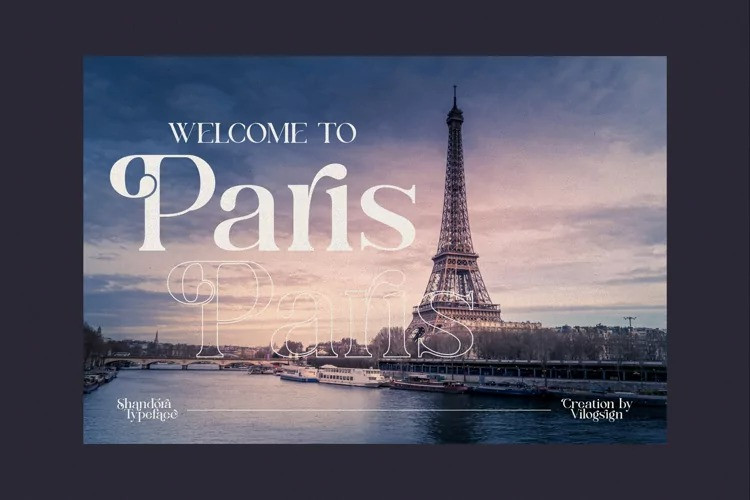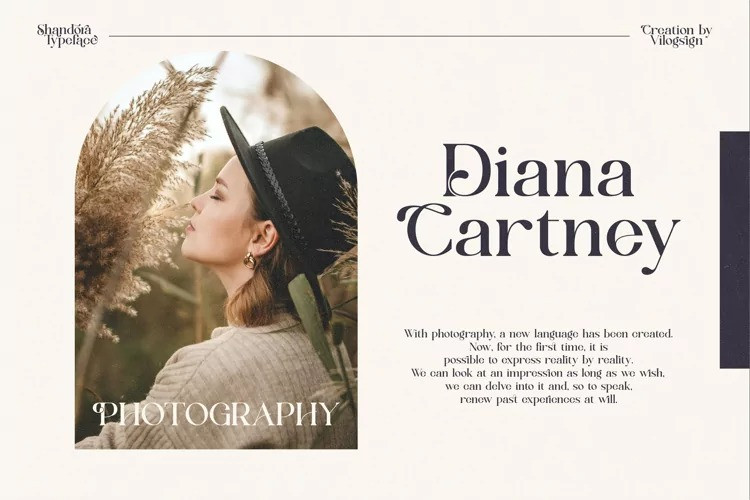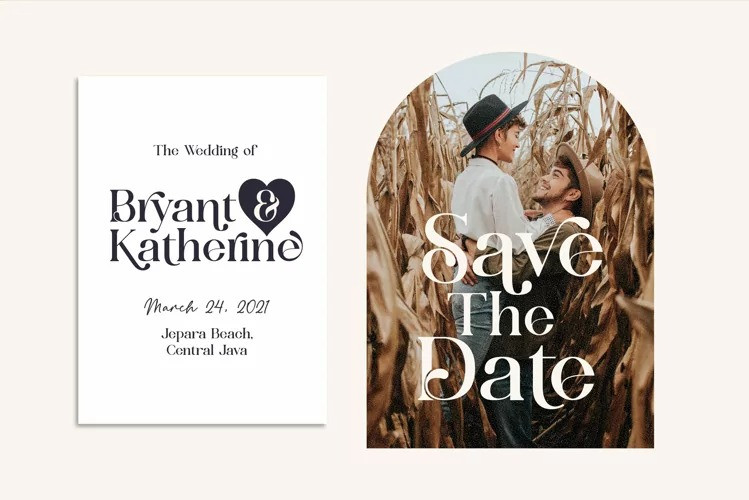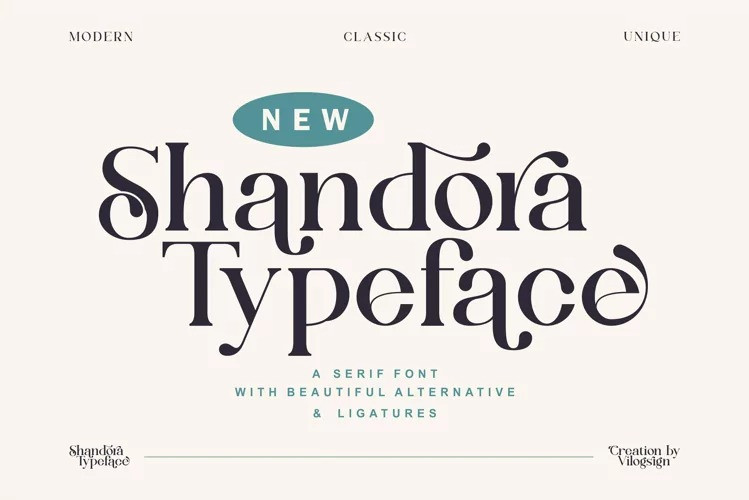
Shandora Font
Shandora Serif Font
Beautiful and soft fonts in a contemporary style that can make your design projects look modern, elegant and luxurious. Made with very serious With altenative make to make this font unique, chic, beautiful So perfect for your need. This font is very good with multilingual support to complete your need. Very suitable to make a branding, Poster, magazine, greeting card, fashion, quotes, logo, packaging, and other.